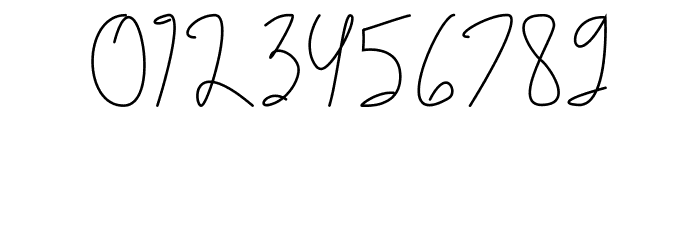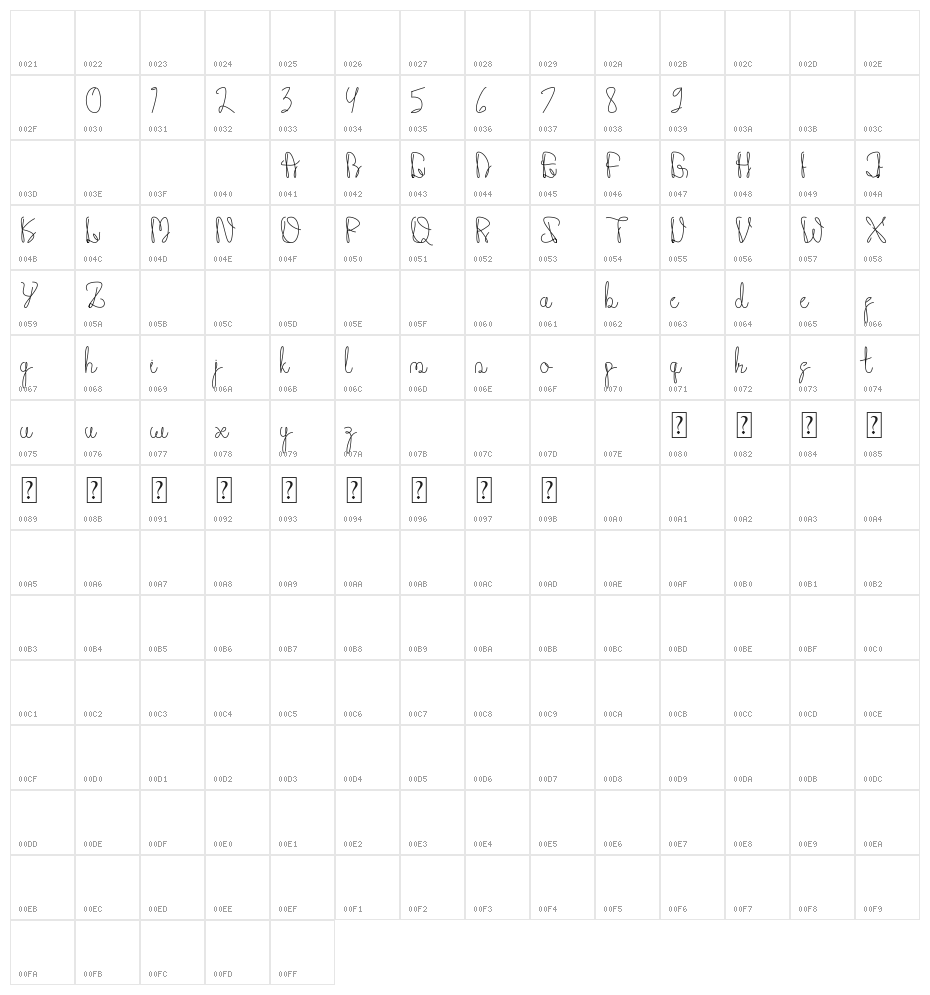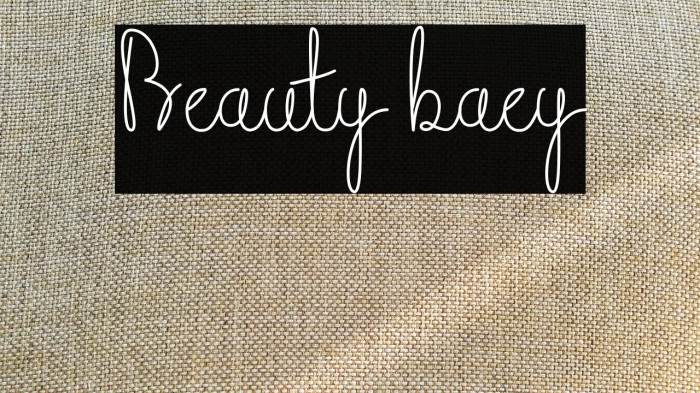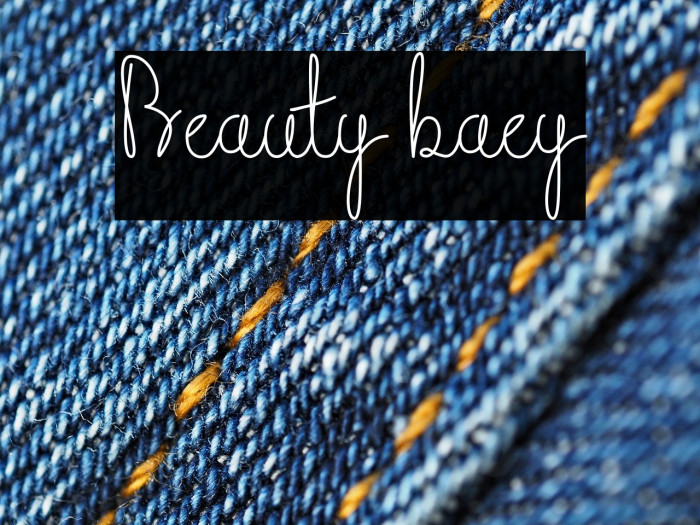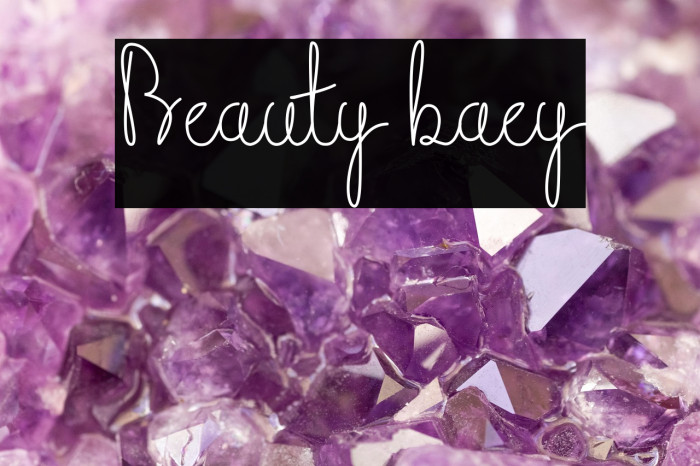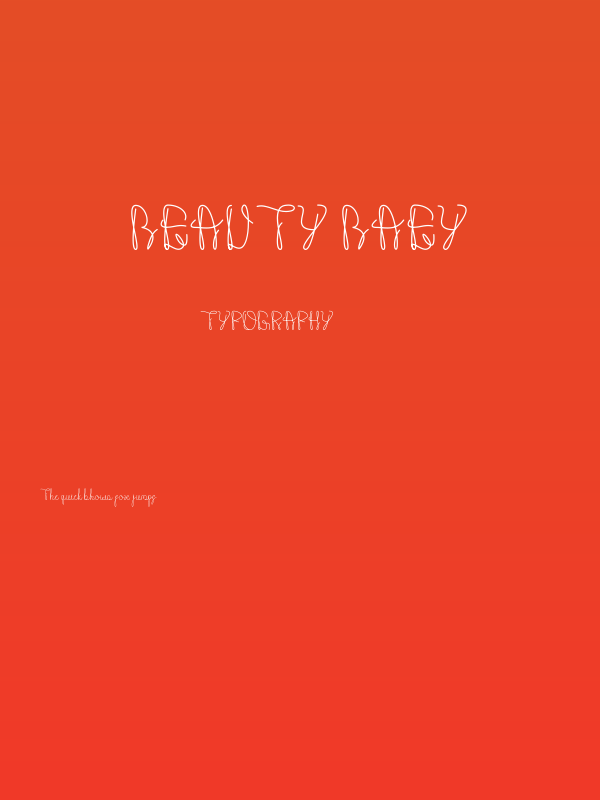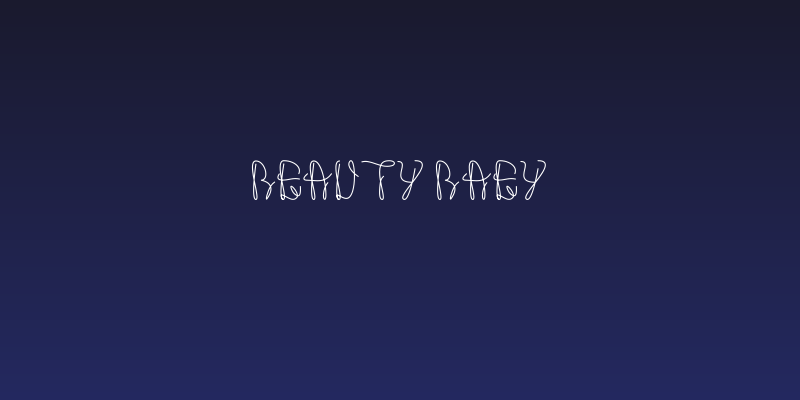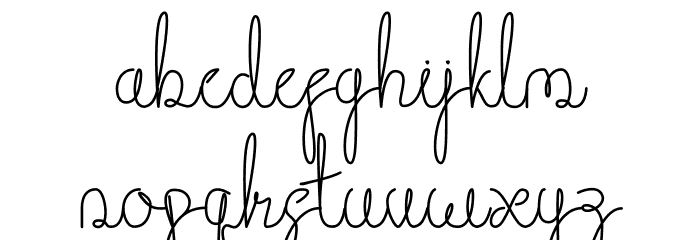
Beauty baey Font
Beauty baey Description
This font features a unique and artistic script style with a playful and whimsical touch. The letters are interconnected with elegant loops and curves, giving it a handwritten appearance. The uppercase letters are bold and expressive, while the lowercase letters maintain a consistent flow with a slightly more delicate touch. The numbers and special characters follow the same fluid style, ensuring a cohesive look across all elements. This font is perfect for projects that require a personal and creative flair, such as invitations, greeting cards, or branding materials that aim to convey a sense of elegance and individuality.